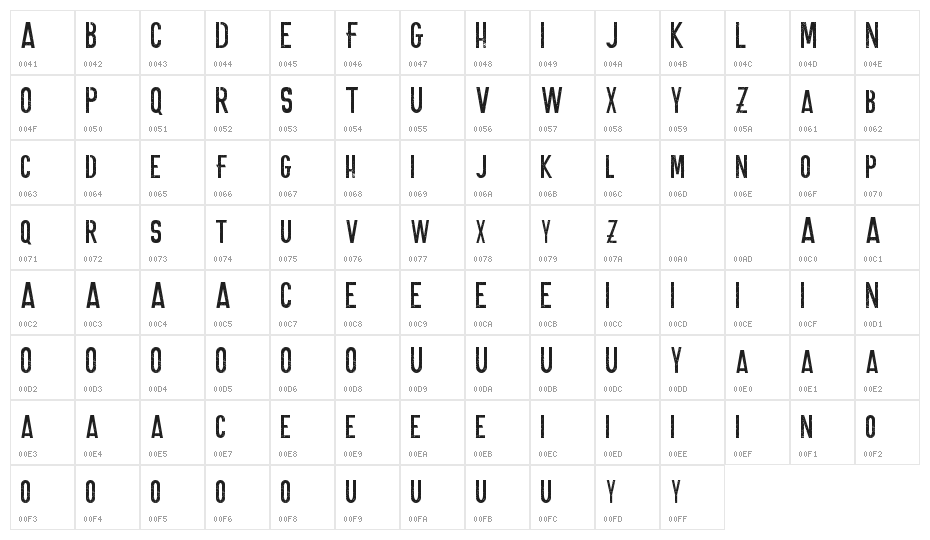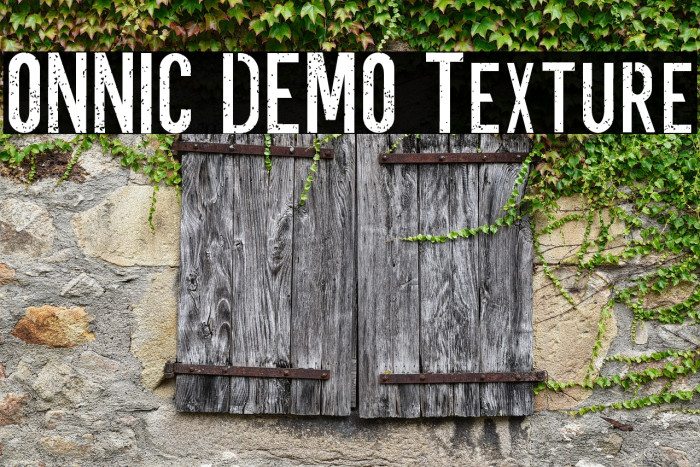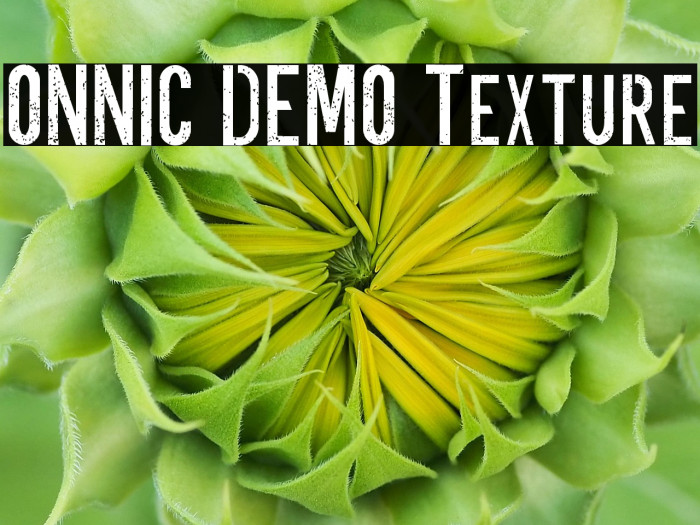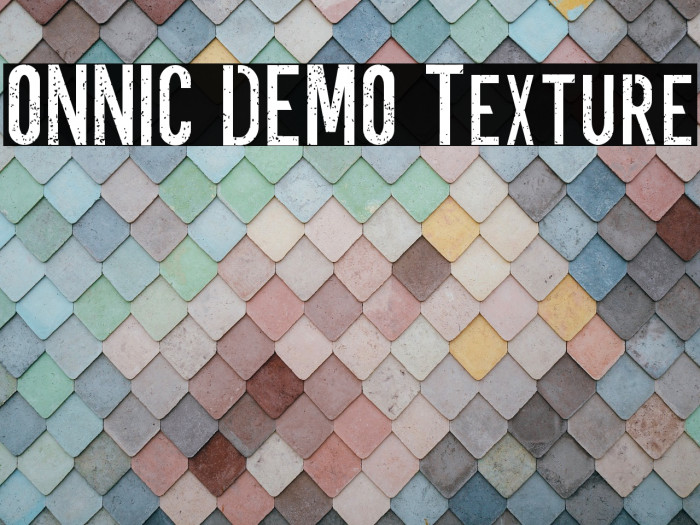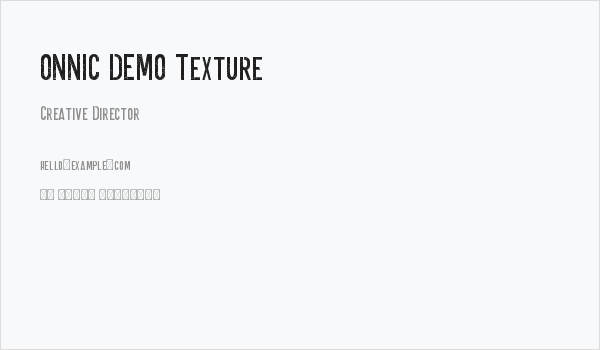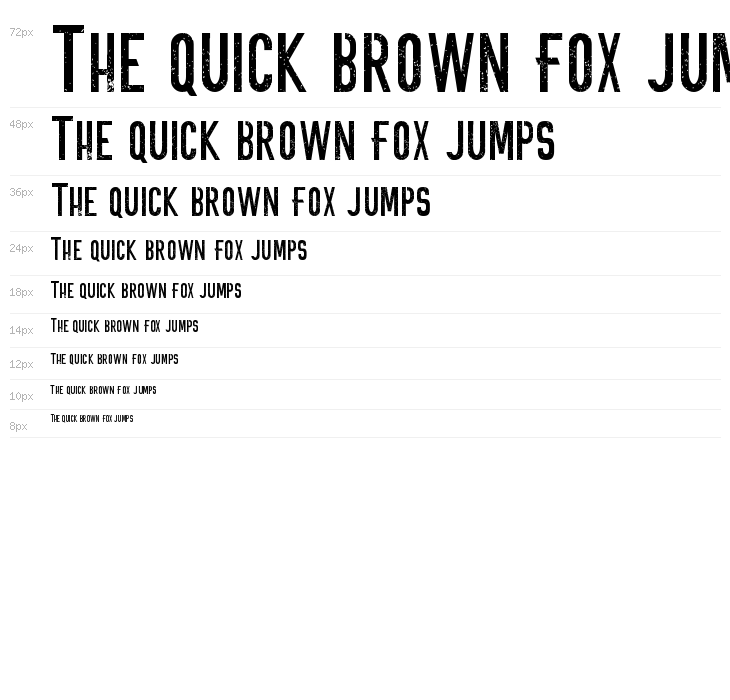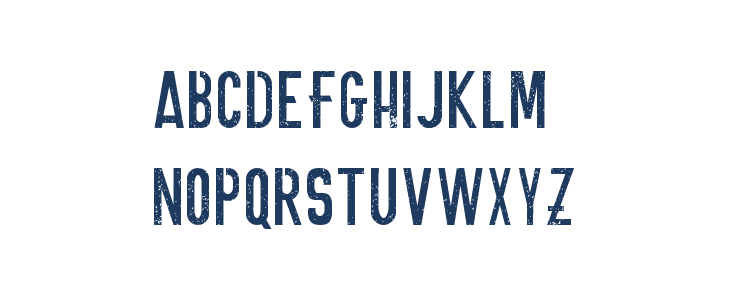
ONNIC DEMO Texture Font
ONNIC DEMO Texture Description
This font features a bold and textured appearance, with a distressed effect that gives it a rugged and vintage feel. The uppercase letters are uniform in height and width, creating a strong and impactful presence. The texture adds a unique character to each letter, making it ideal for designs that require a gritty or industrial aesthetic. The font maintains a consistent weight throughout, ensuring readability while still delivering a distinctive style. Its bold nature makes it suitable for headlines and titles, where attention-grabbing text is essential.
Overall StyleVintage
Proposed ProjectsIdeal for posters, logos, branding, and any design needing a strong, vintage aesthetic.